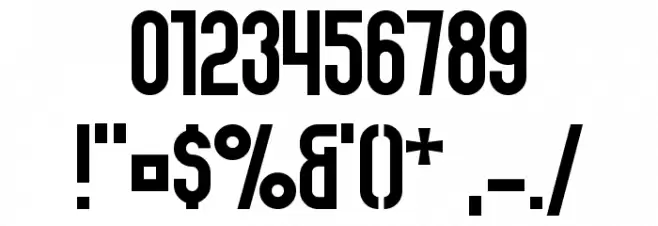
Elbaris Font
Elbaris Description
This font features a bold and geometric design with a strong presence. The characters are uniformly thick, giving it a robust and impactful look. The uppercase letters are particularly striking, with a consistent height and width that create a cohesive appearance. The lowercase letters maintain the same boldness, ensuring readability and uniformity. Numbers and special characters are designed to match the overall style, providing a seamless integration across all elements. The font's design is modern and clean, making it suitable for various applications where a strong visual impact is desired.
A bold, geometric font with a modern and impactful design from Uncategorized fonts.